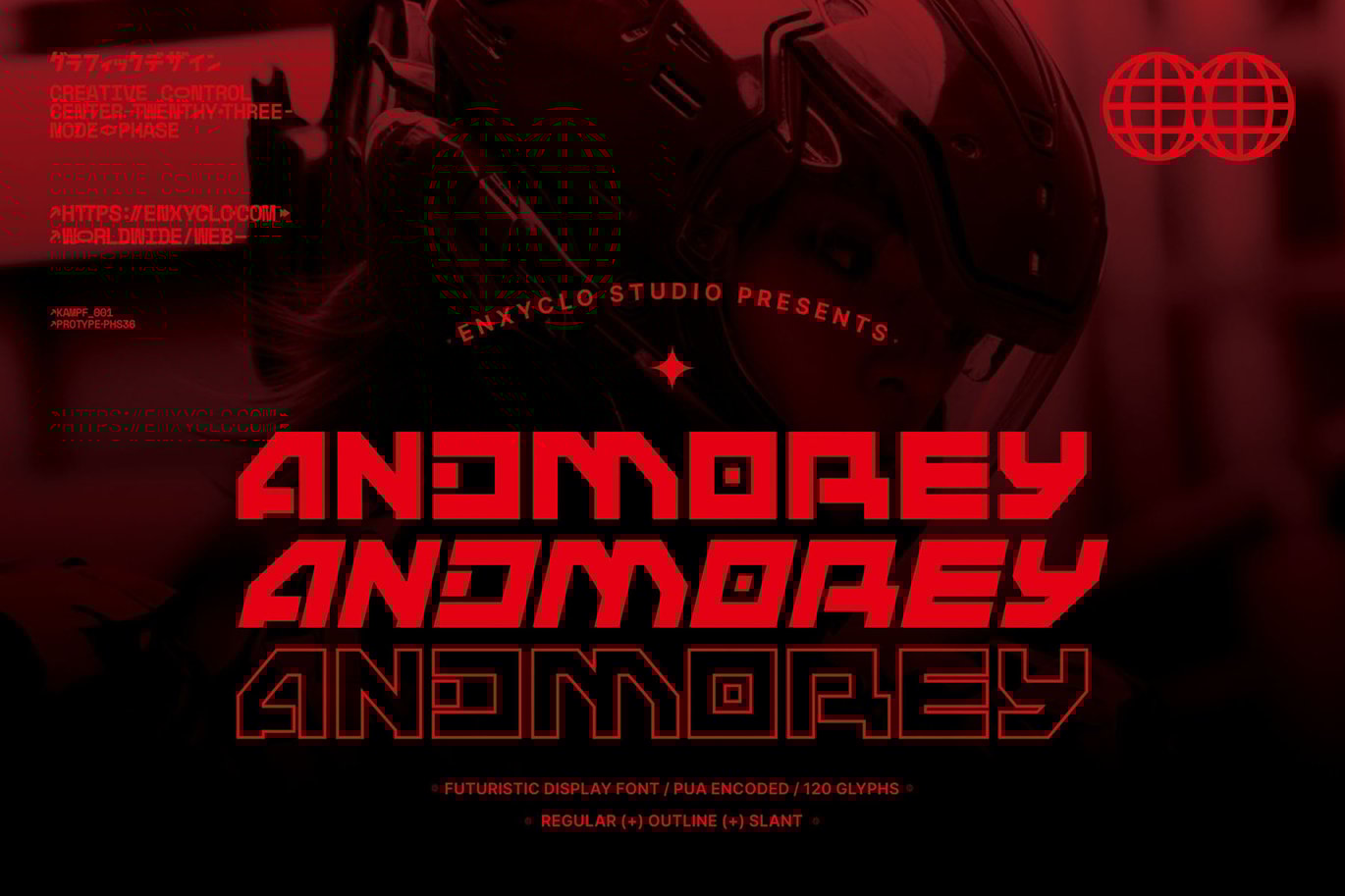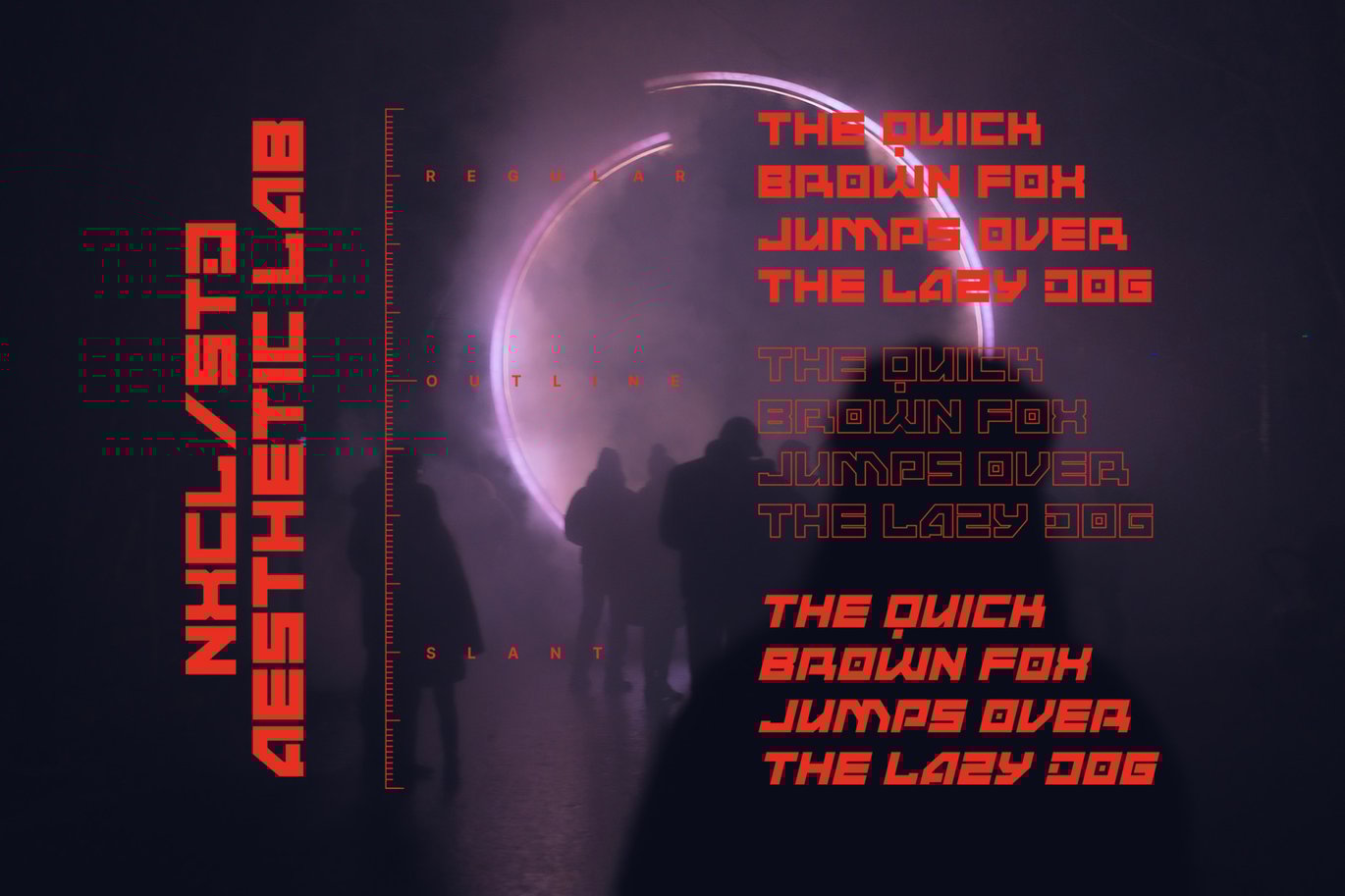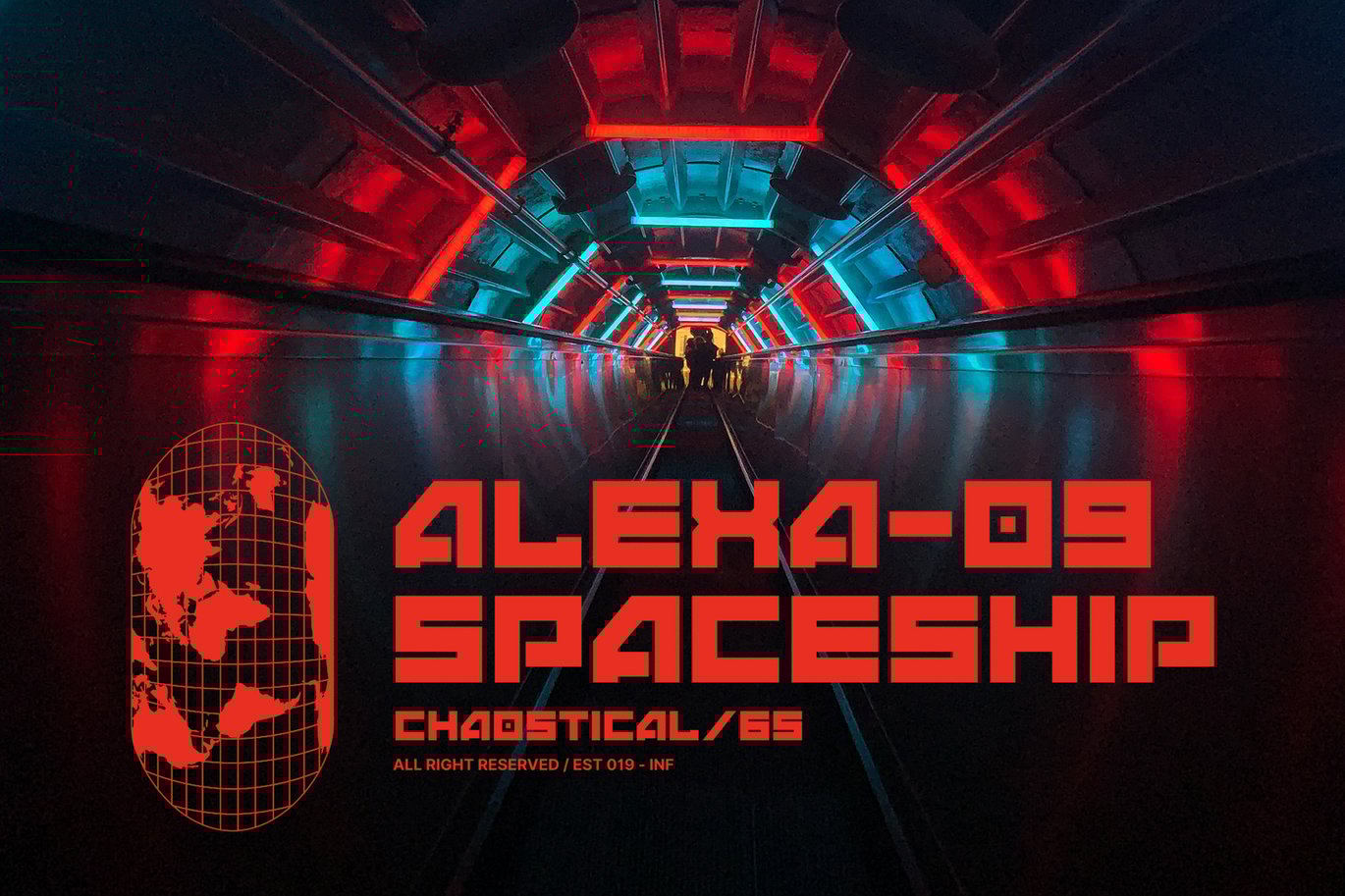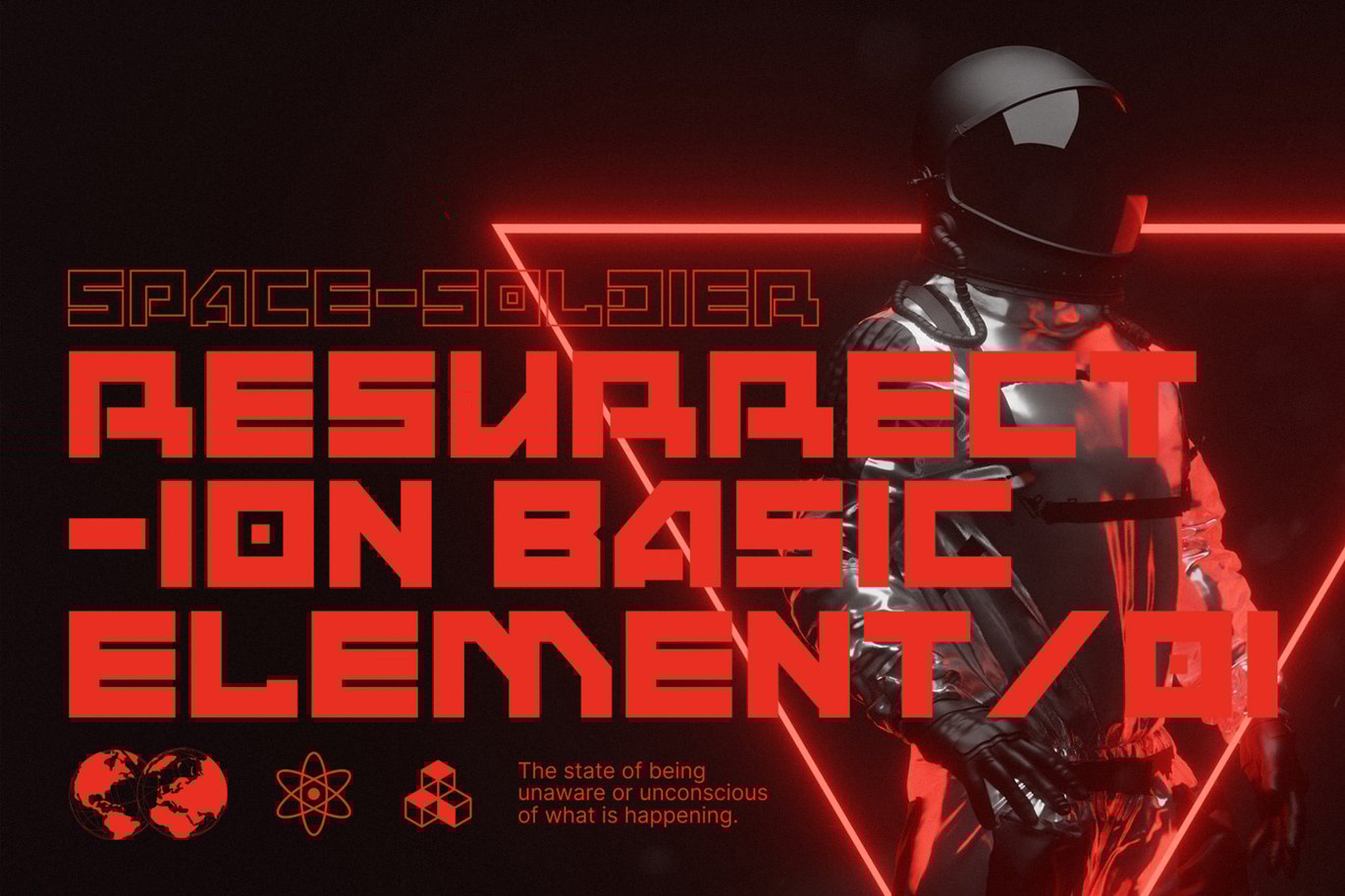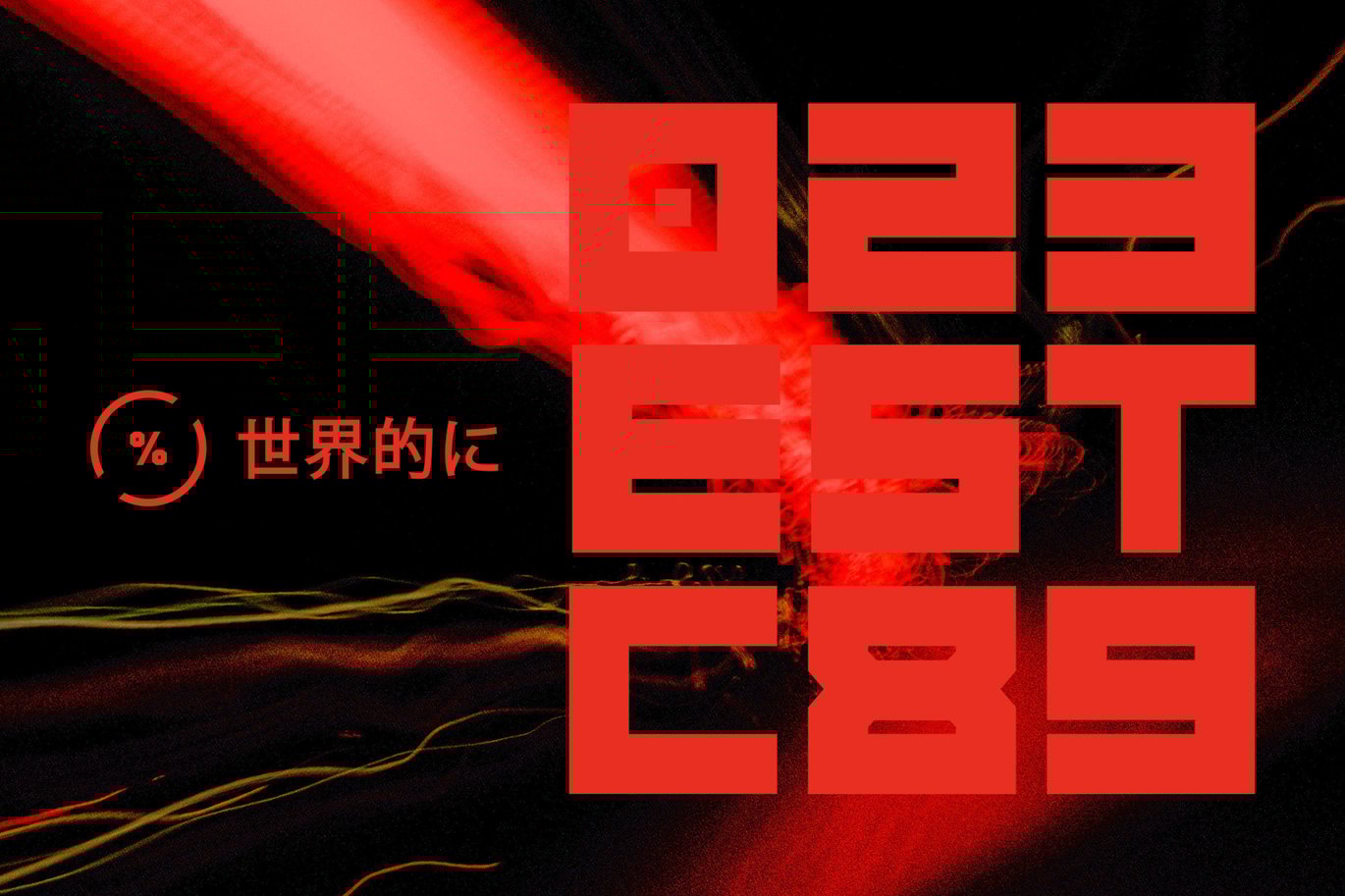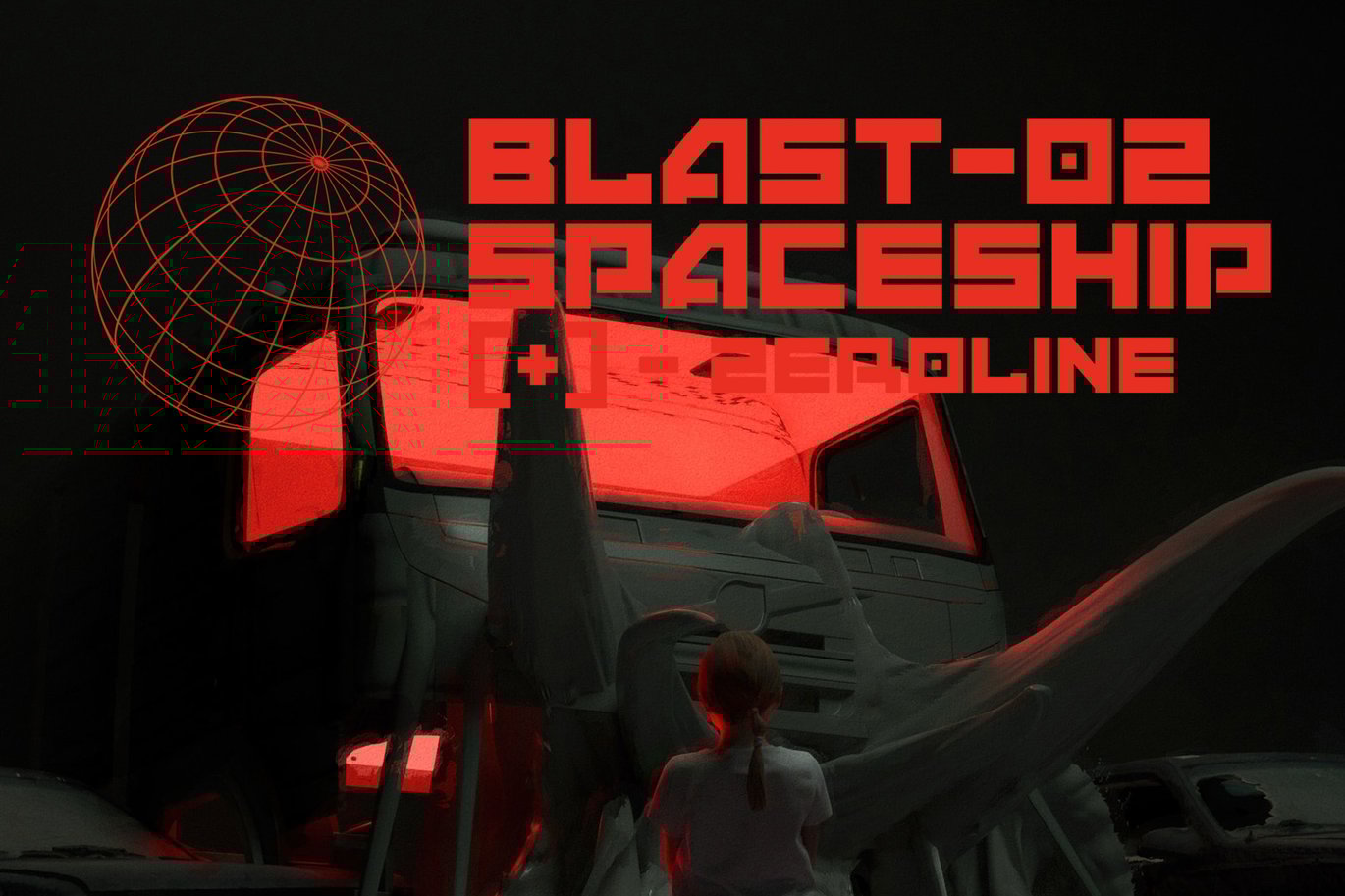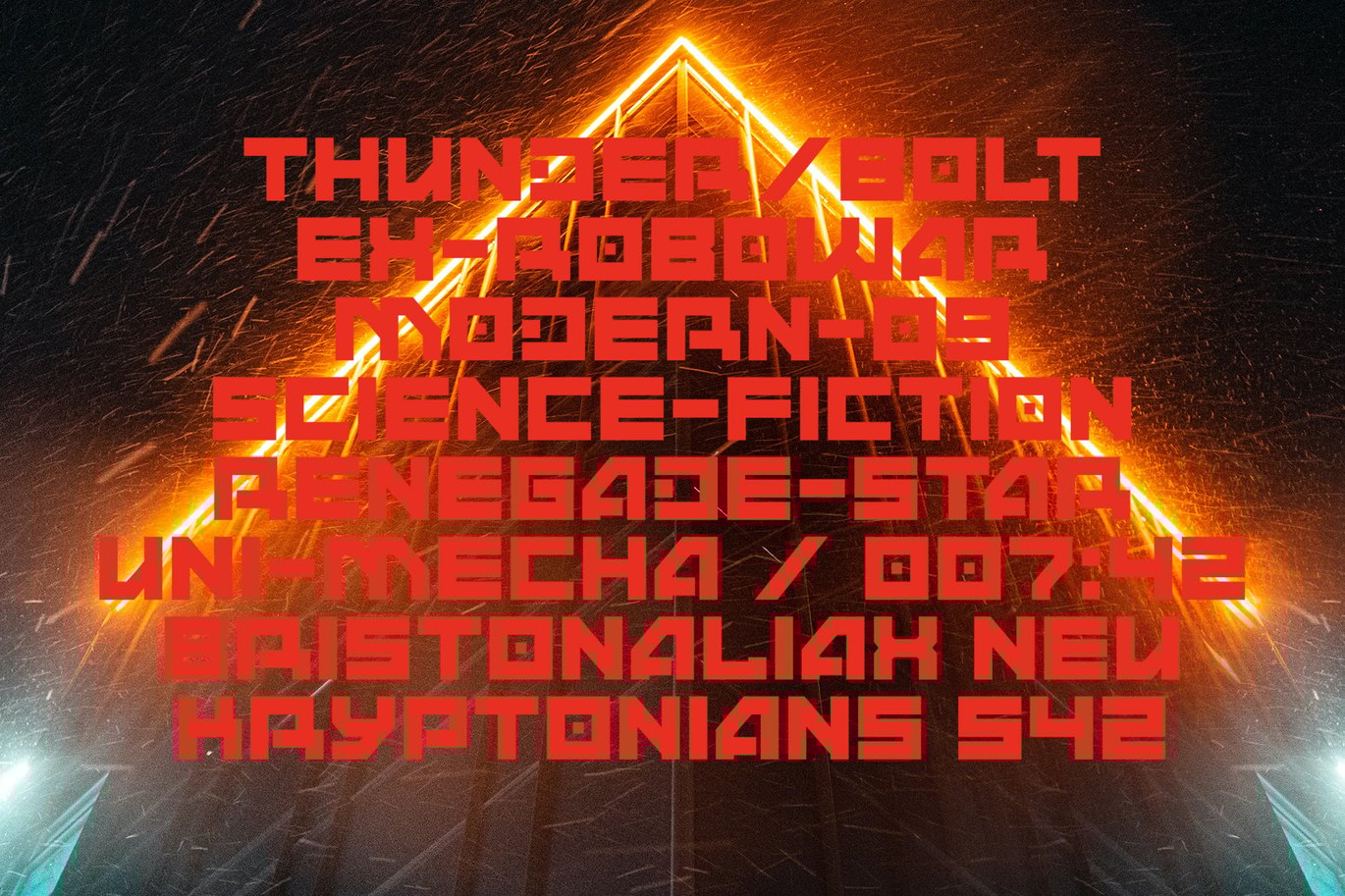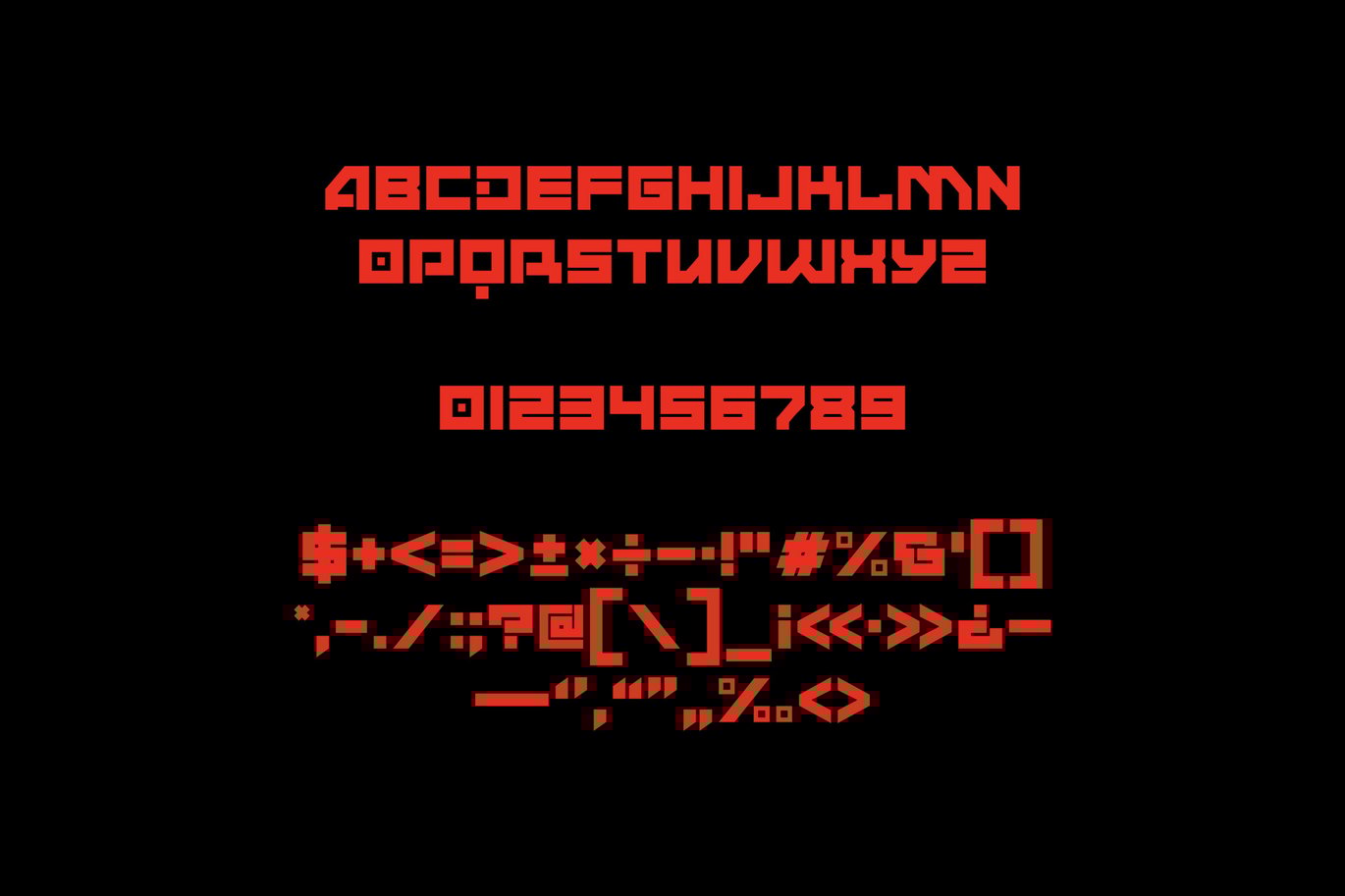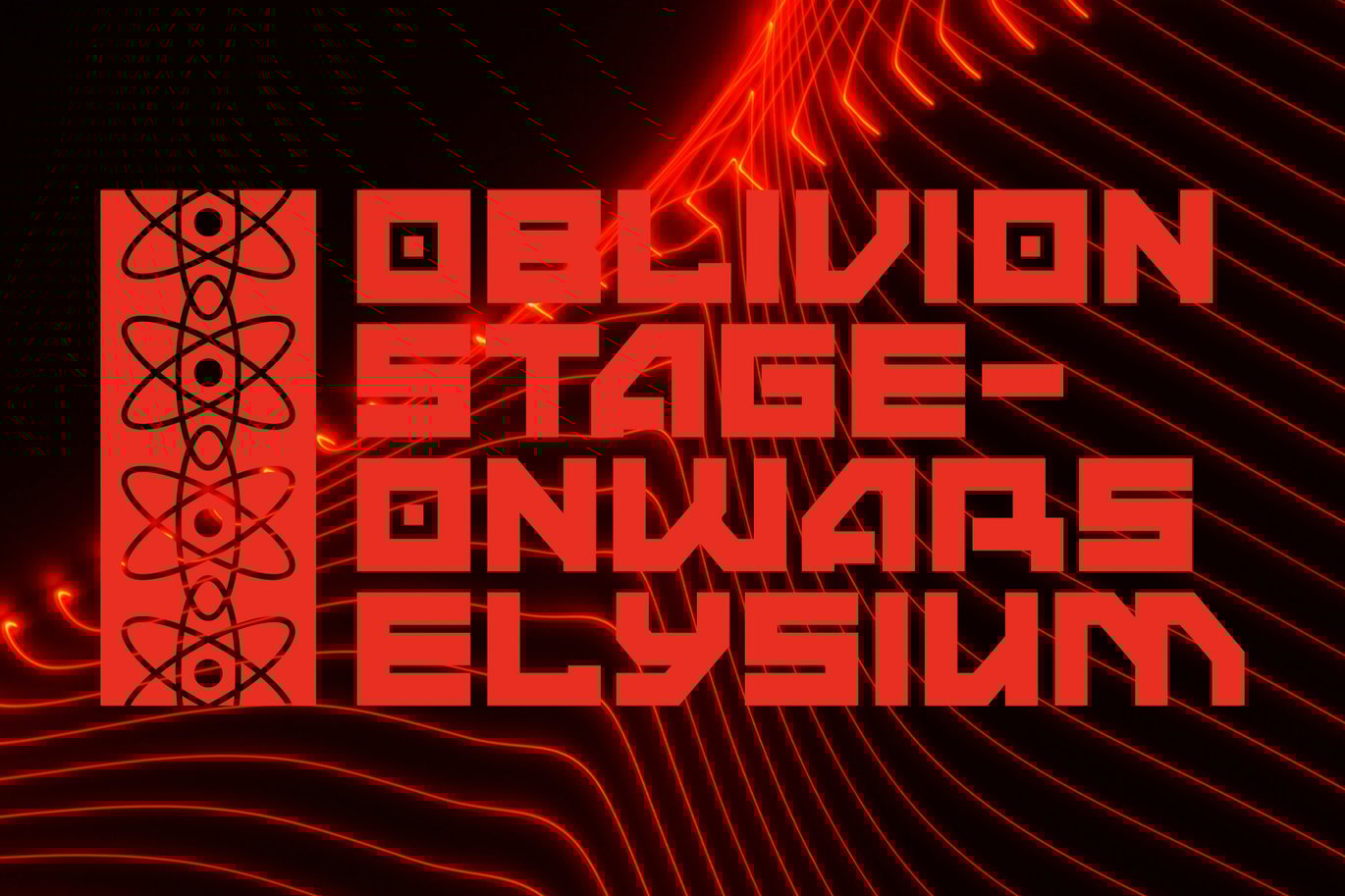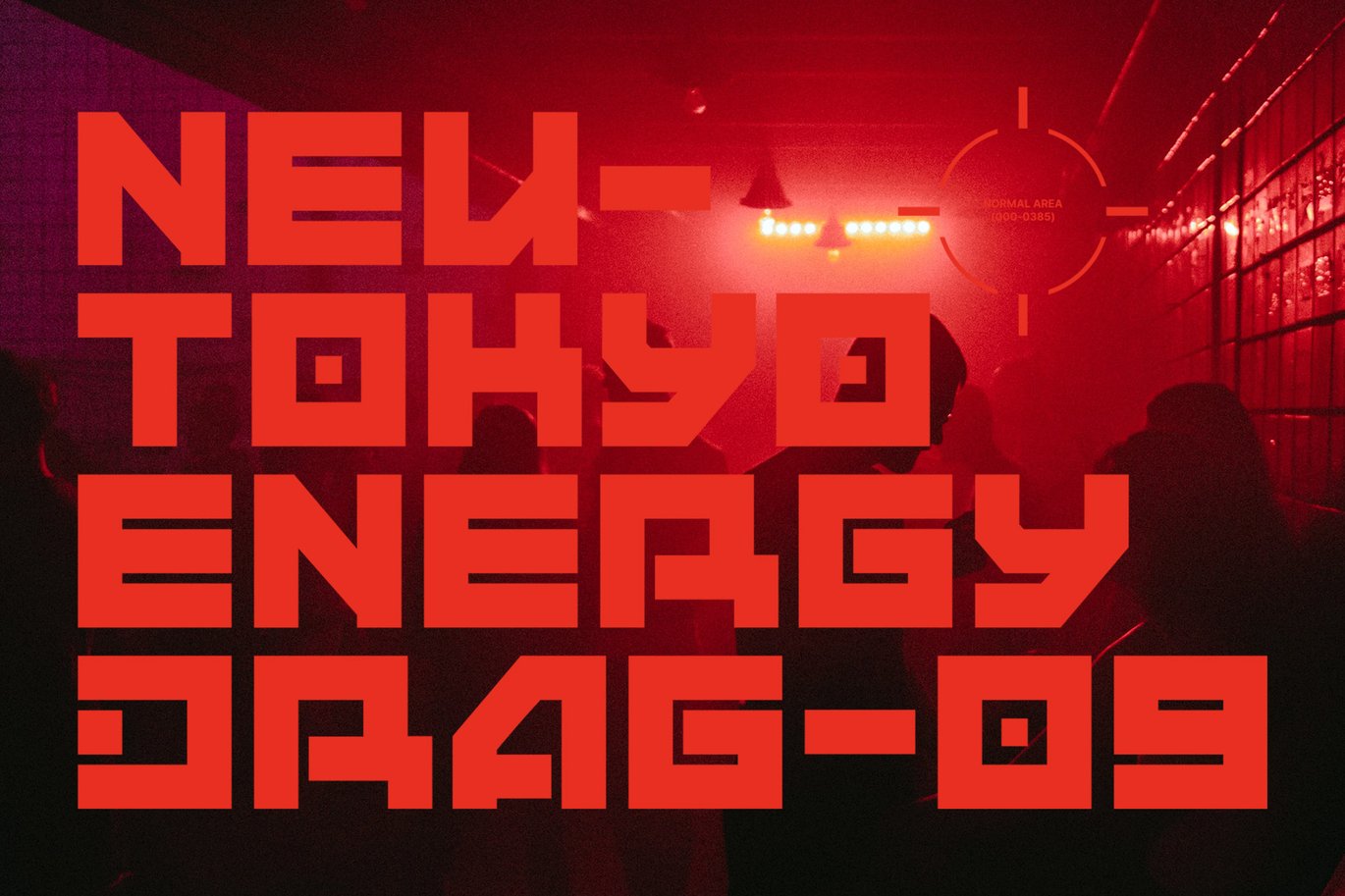
Andmorey – Futuristic Cyberpunk Tech Display Font
ANDMOREY is futuristic display font. The design of typeface will make your project more powerful and inspiring. It is perfect for headline, billboard, magazines, website, titles, poster, branding, thumbnail, or any project that needs futuristic touch. With this beautiful futuristic display font, absolutely you can make your project stand out from the rest.
- 3 Styles: Regular, Outline and Slant
- Uppercase Only
- Numeral, Punctuation & Symbol